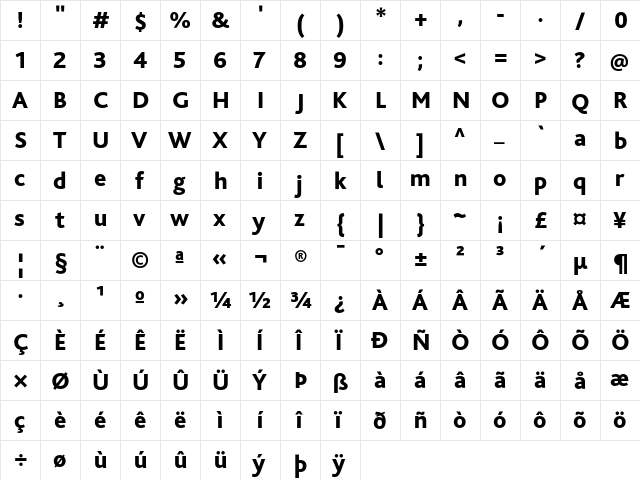
BlissPro Regular
Design Context for BlissPro Typeface
BlissPro takes a measured approach to typography — its balanced proportions and neutral character make it a reliable workhorse for both digital and print work.
Pro Tip: Pair BlissPro with a font of contrasting weight or personality to build a more expressive typographic hierarchy.